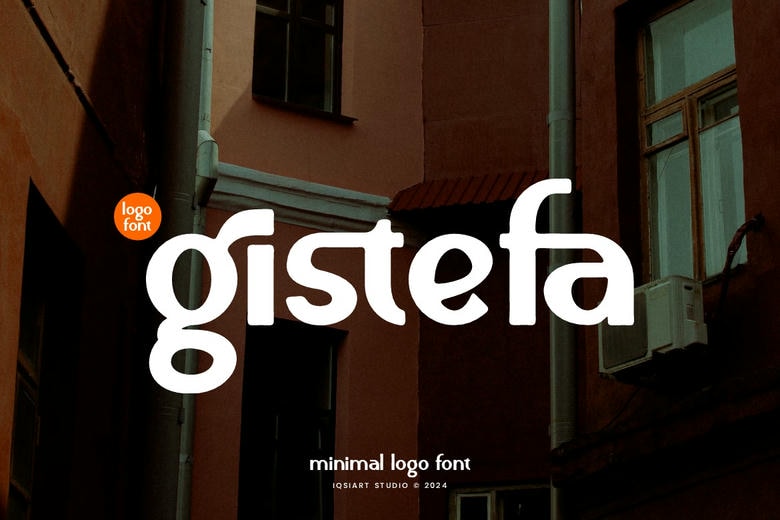
Gistefa Font
Gistefa is a sans serif font type, simple, and needless to say, very neat and tidy. This format has smooth lines, which makes the overall design look rather contemporary; thus, it is rather easy to read. It is ideal for web design as well as for print media since Gistefa gives the texts a stylish look without being obtrusive.
Gistefa Sans Serif Font